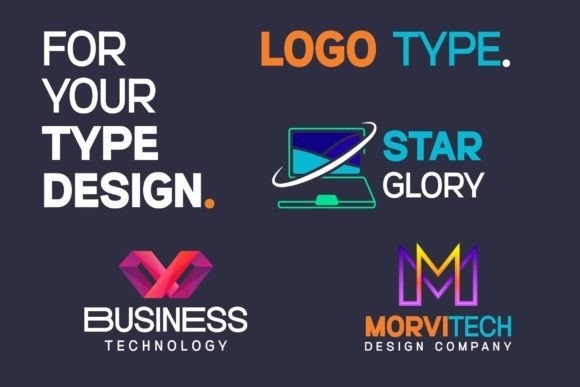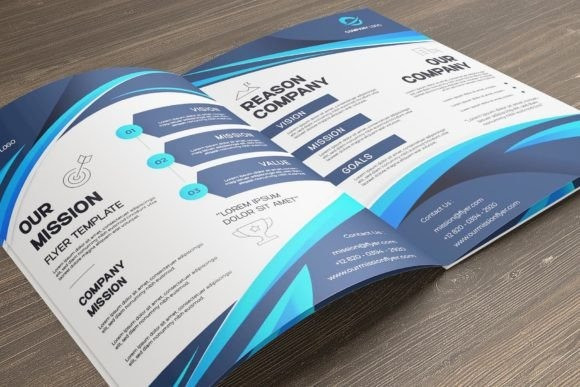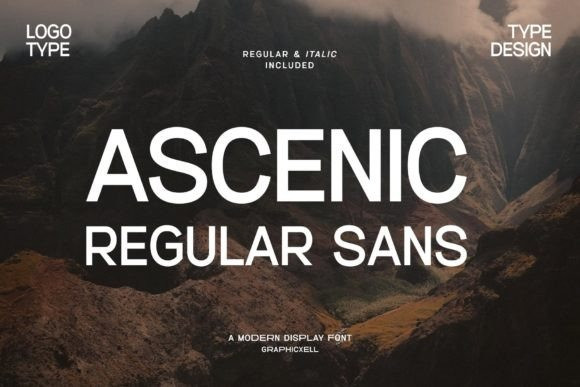
Ascenic Font
Ascenic Font is a modern and attractive sans-serif font with sleek lines, perfect for contemporary designs. It has crisp edges and a balanced structure, perfect for logos, titles, and more. This font is PUA encoded which means you can access all glyphs and swashes effortlessly!